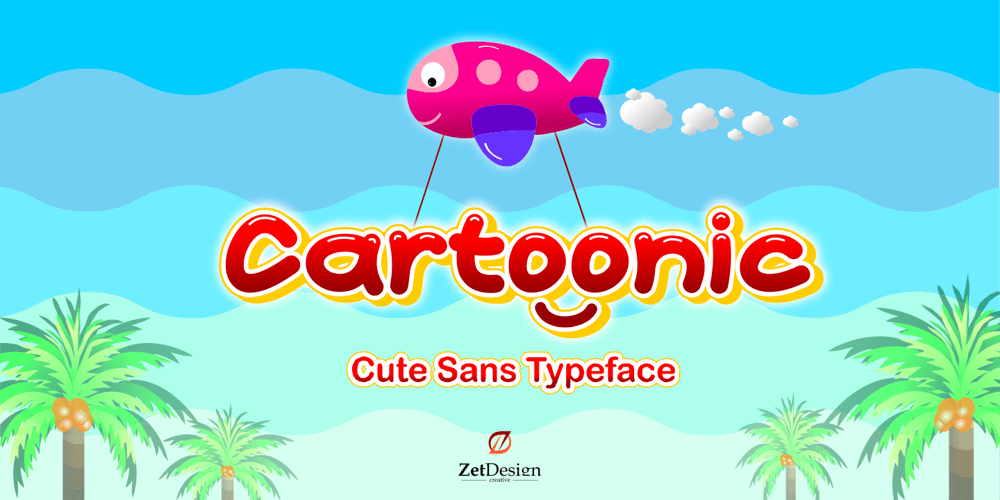
Cartoonic Font Family was designed by Ahmad Zulfikar Ali and published by ZetDesign. Cartoonic contains 1 styles and family package options. Cartoonic is a fun and cute display font. This enchanting font will turn any creative idea into a true standout. Get creative with its childlike playfulness, and use it to brighten up any kids and school project!